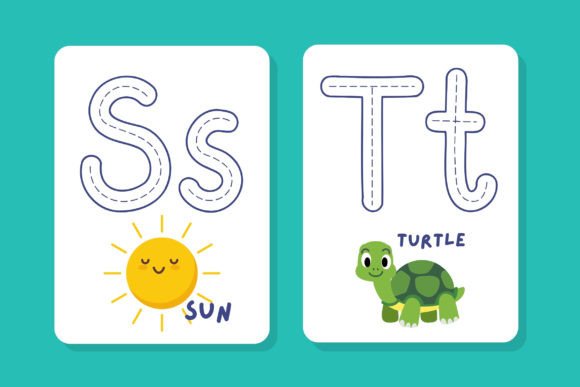
Handwriting Fun Font
Introducing “Handwriting Fun” a delightful alphabet-style font designed to make learning to write an enjoyable experience for kids. With clear and engaging letterforms, this font provides the perfect platform for practicing proper letter formation. Whether it’s for studying, worksheets, or learning materials in schools, kindergartens, or elementary classrooms, “Handwriting Fun” offers a user-friendly tool for honing writing skills in young learners. Let your children embark on a journey of discovery and improvement with this playful and educational font.